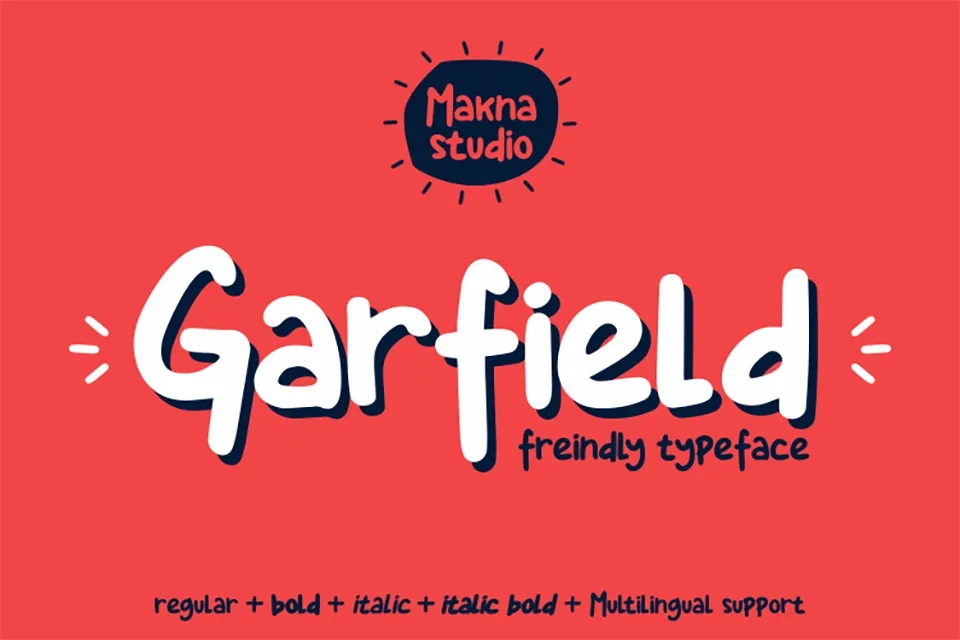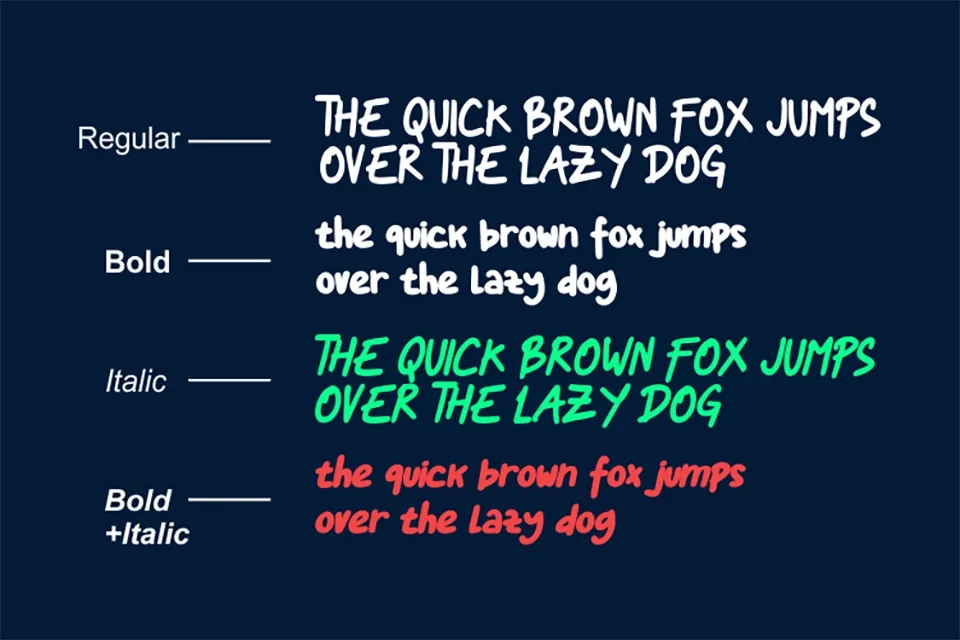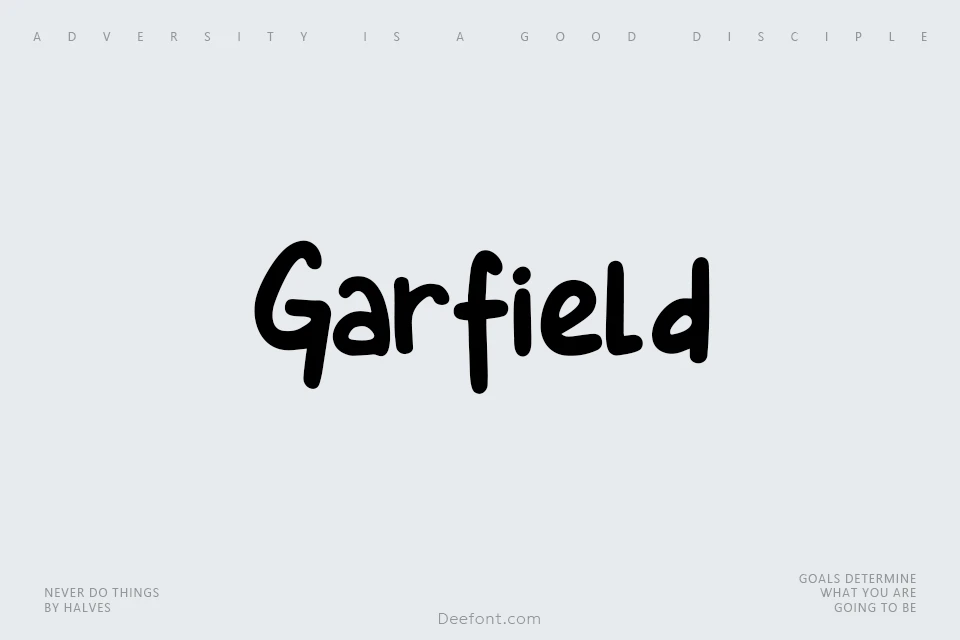
Garfield Font
Garfield Font is a cheerful and friendly typeface designed to add a playful touch to any project. Created by Makna Studio, this font offers versatility with its range of styles, including regular, bold, italic, and italic bold, making it suitable for various creative applications. Its rounded, handcrafted letters exude warmth and approachability, perfect for branding, children’s designs, posters, or social media graphics. Garfield Font also features multilingual support, ensuring global usability. Whether you’re aiming for a bold statement or a softer tone, Garfield Font brings personality and charm to your work, making it a delightful choice for designers everywhere!